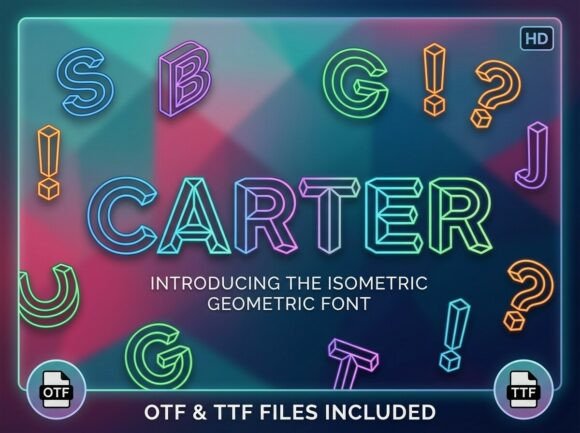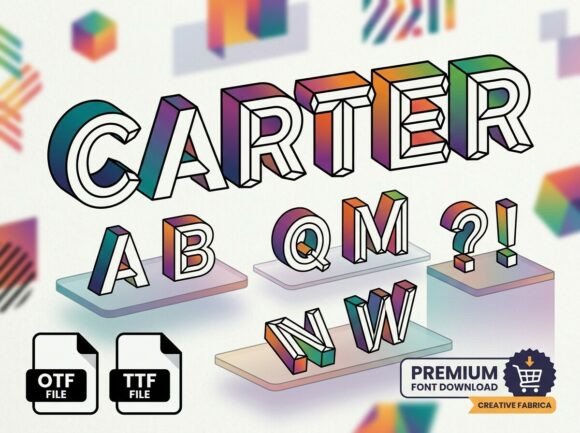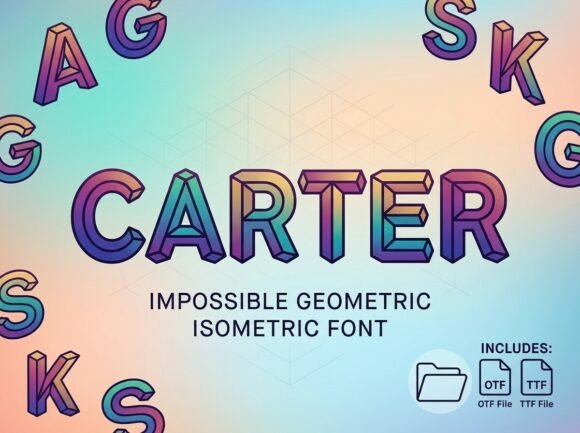
Carter Font: The Ultimate Decorative Display Font for Creative Designs
In the world of typography, a font can make or break a design. If you’re looking for a font that can add a touch of uniqueness and creativity to your projects, look no further than Carter Font. This stunning decorative display font is designed to be the center of attention, featuring unique artistic elements and a strong visual personality that sets it apart from the ordinary.
Carter Font is perfect for creators who want to make a statement with their designs. With its intricate details and creative letterforms, this font is ideal for high-impact designs where the typography needs to do the talking. Whether you’re designing a modern poster, a unique brand identity, or eye-catching social media content, Carter Font adds an instant “wow” factor to any project.
One of the best things about Carter Font is its versatility. This font can be used for a wide range of design projects, from bold headlines and artistic logos to creative packaging and more. It maintains a professional and polished finish, making it perfect for designers who want to create high-quality designs that stand out from the crowd.
Ideal for Various Design Projects
So, what can you use Carter Font for? The possibilities are endless! Here are some ideas to get you started:
- Poster Design: Create headlines that people can’t look away from. Carter Font is perfect for designing eye-catching posters that grab attention and leave a lasting impression.
- Branding & Logos: Build a unique identity for creative businesses. This font is ideal for designing artistic logos that reflect a brand’s personality and style.
- Apparel & Merch: Perfect for T-shirts, hoodies, and tote bag designs. Carter Font adds a touch of creativity and uniqueness to any apparel or merchandise design.
- Social Media: Make your quotes and announcements stand out in the feed. This font is perfect for creating eye-catching social media content that gets noticed.
- Packaging: Give your products a premium feel with Carter Font. This font is ideal for designing creative and eye-catching packaging that stands out on store shelves.
Key Features of Carter Font
So, what makes Carter Font so special? Here are some of its key features:
- Unique Artistic Elements: Carter Font features unique artistic elements that set it apart from other fonts.
- Strong Visual Personality: This font has a strong visual personality that demands attention.
- Intricate Details: Carter Font features intricate details that add a touch of creativity and uniqueness to any design.
- Creative Letterforms: The letterforms in Carter Font are creative and eye-catching, making it perfect for high-impact designs.
Why Choose Carter Font?
So, why should you choose Carter Font for your design projects? Here are just a few reasons:
- Adds a Touch of Uniqueness: Carter Font adds a touch of uniqueness and creativity to any design.
- Perfect for Creative Designs: This font is perfect for designers who want to create high-impact designs that stand out from the crowd.
- Versatile: Carter Font can be used for a wide range of design projects, from posters and logos to packaging and more.
- Professional and Polished Finish: This font maintains a professional and polished finish, making it perfect for high-quality designs.
In conclusion, Carter Font is a stunning decorative display font that is perfect for designers who want to add a touch of uniqueness and creativity to their designs. With its intricate details, creative letterforms, and strong visual personality, this font is ideal for high-impact designs that demand attention. Whether you’re designing a modern poster, a unique brand identity, or eye-catching social media content, Carter Font is the perfect choice.